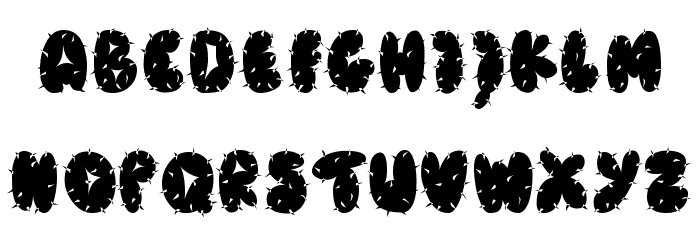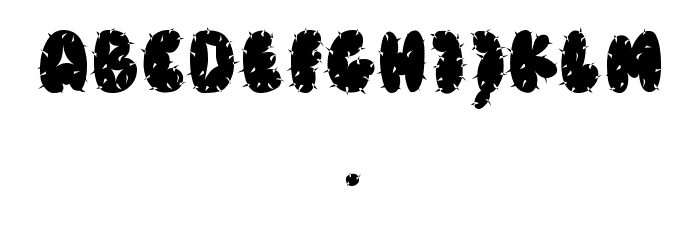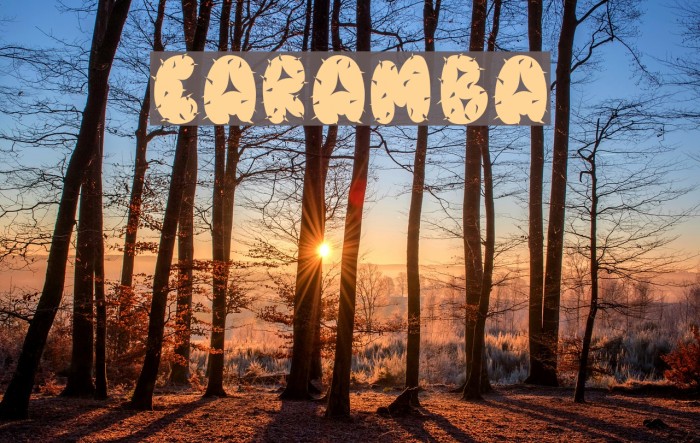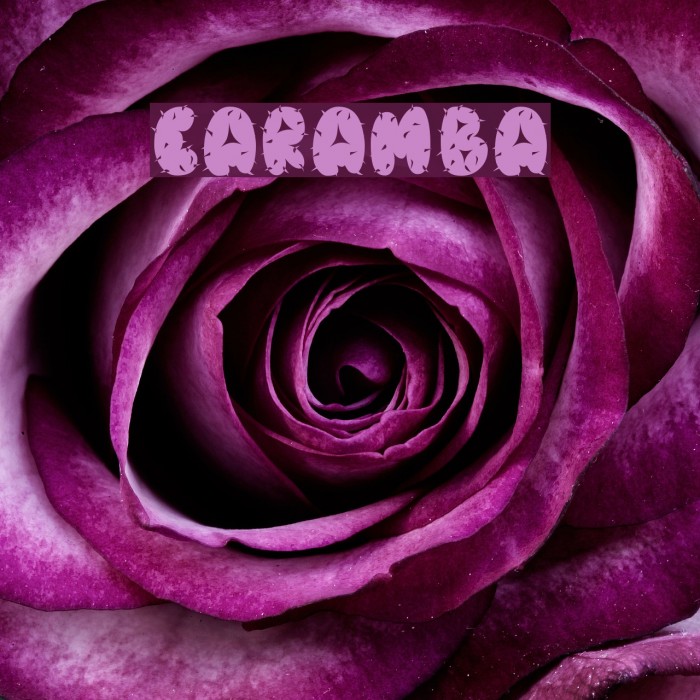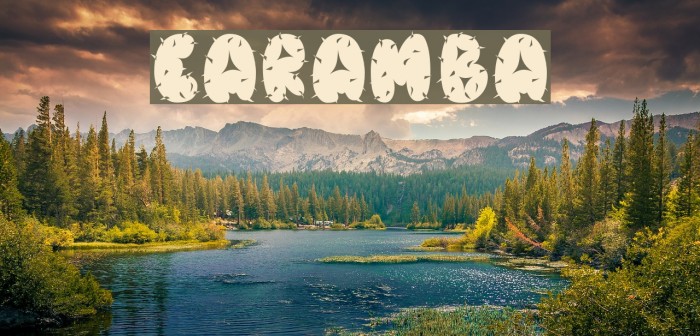
Caramba Font
This font features a bold, decorative style with a unique, textured appearance that resembles scattered leaves or abstract shapes. Each character is filled with intricate details, creating a visually striking effect. The font maintains a consistent weight throughout, with rounded edges and a playful, artistic flair. Its distinctive design makes it stand out, capturing attention with its creative and unconventional look. The characters are well-defined, ensuring readability despite the complex patterns within each letter. This font is perfect for projects that require a bold statement or artistic touch.
A bold, decorative font with a textured, artistic design.
- Proposed Projects: Ideal for posters, album covers, artistic branding, and creative event invitations.